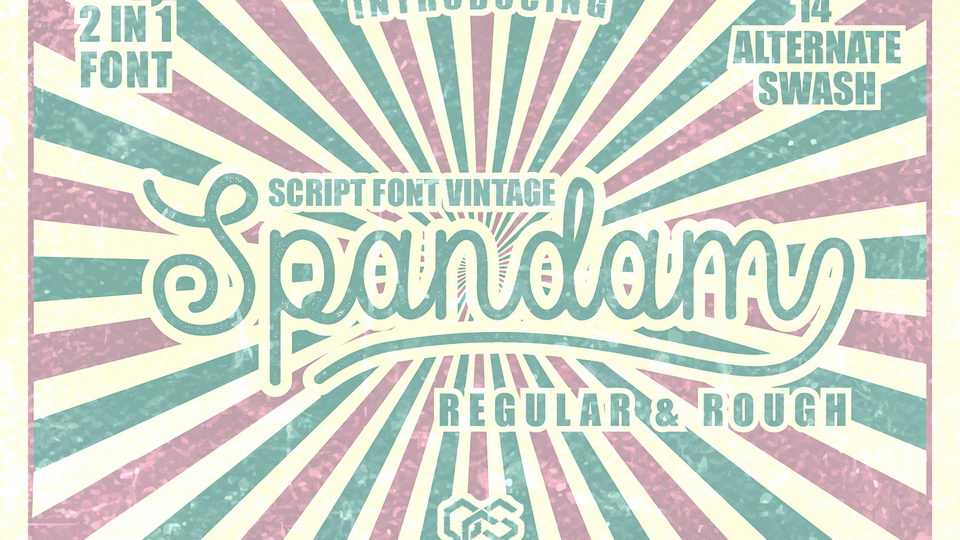
Download Spandam font, a beautiful monoline vintage script, inspired by old style typography combined with modern typography style. Spandam Vintage is the best choice for logotype, badges, posters and more.
Designer: OCSstudio